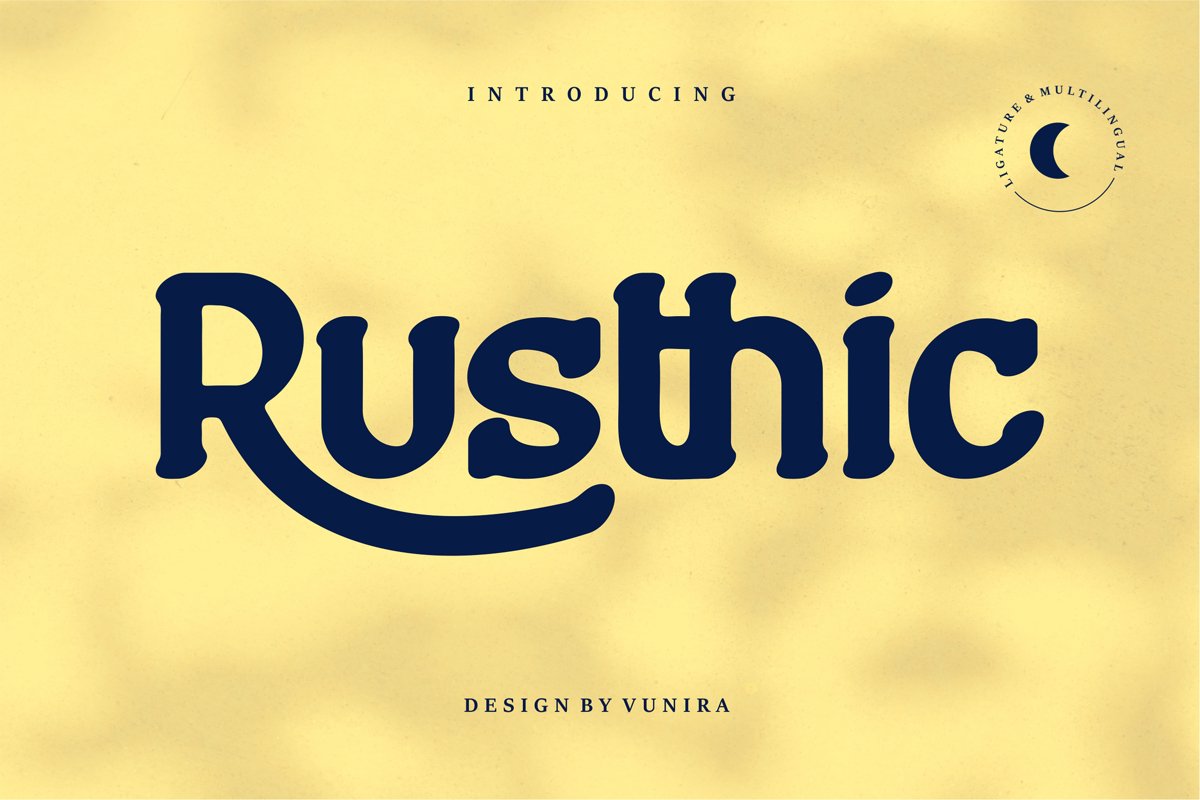
Rusthic | Sans-Serif Font
Rusthic
**Rusthic | Sans-Serif Font** with a calligraphy style, So beautiful on invitation like greeting cards, branding materials, business cards, quotes, posters, and more!
* Alternates and Ligatures